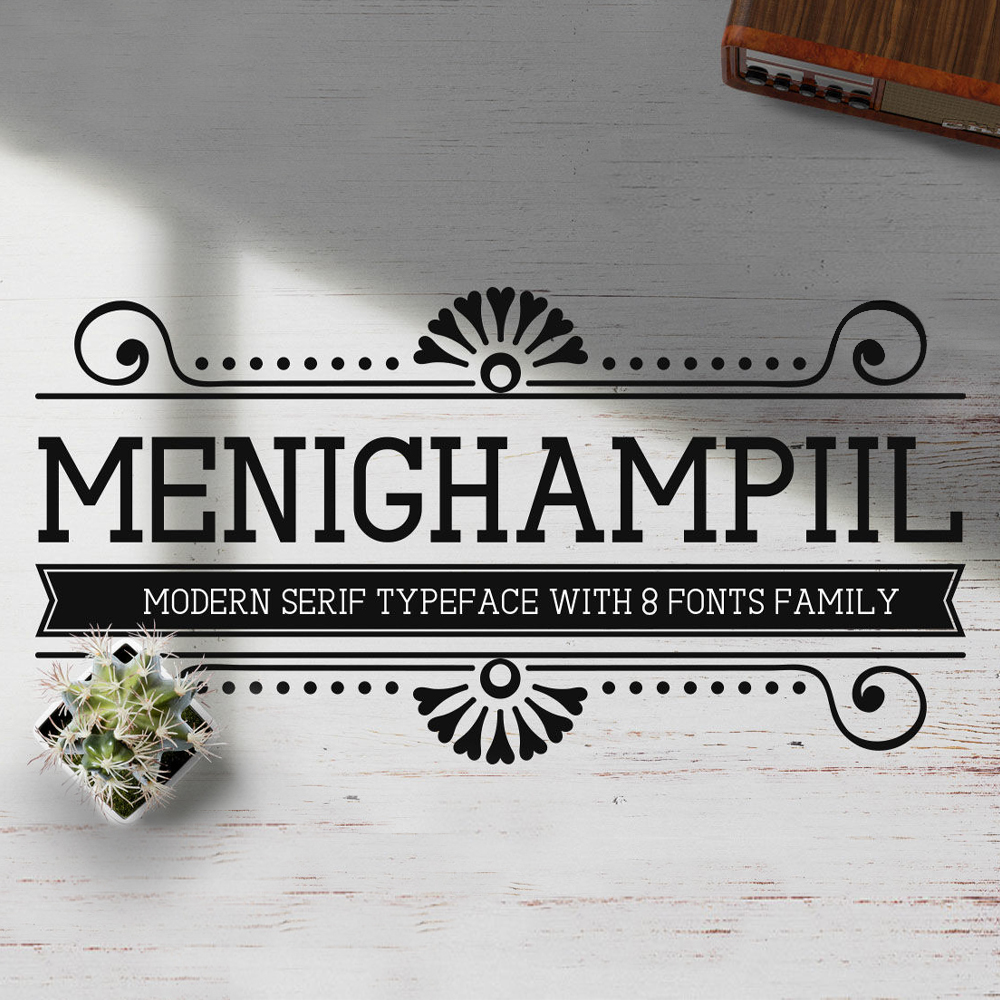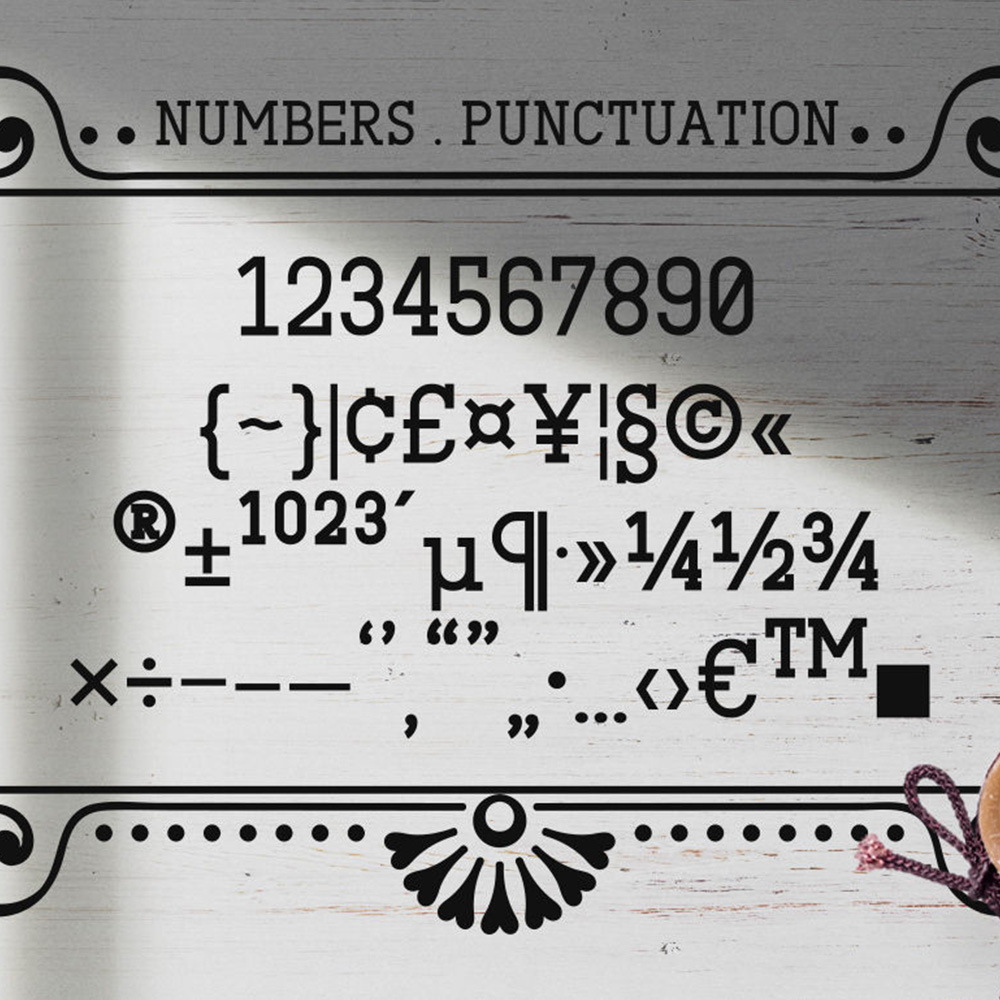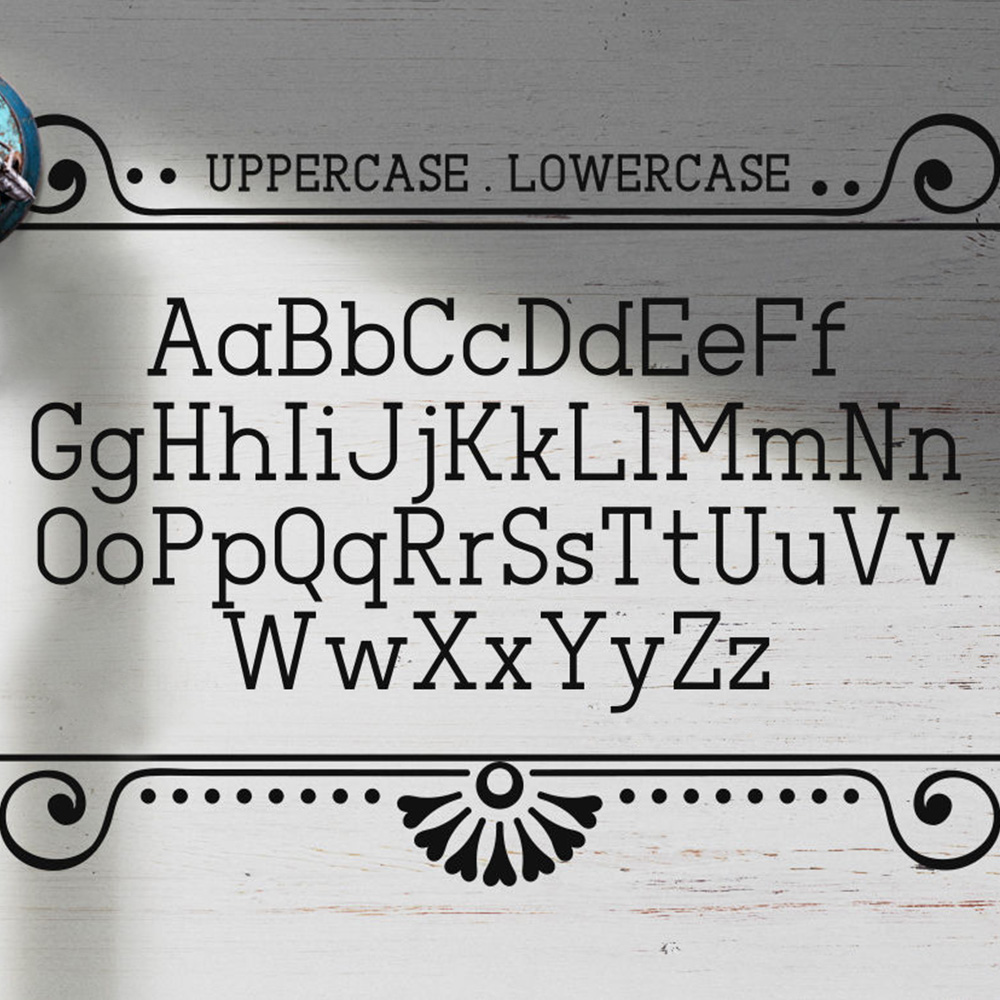
Menighampiil Font
Menighampiil Font is a cut friendly font compatible with Cricut, Silhouette, SCAL and Scan N Cut. Its thickness makes it an ideal font for making cut files.
• Uppercase, Lowercase, numbers & punctuation
• Italic, Bold, Bold Itali, Light, Light Italic, Rough and Rough Italic